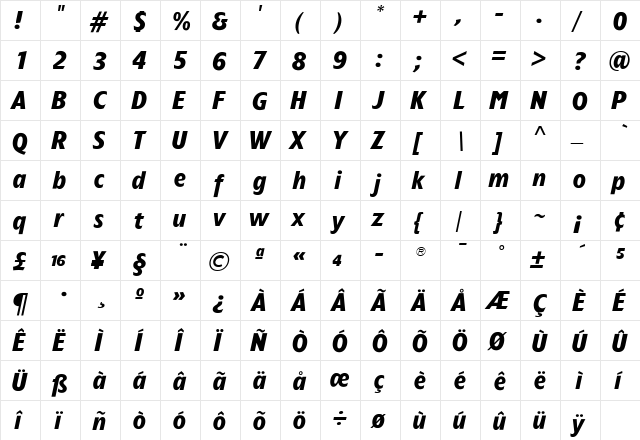
TFForever Bold
| Foundry | J. Treacy,Treacyfaces,Inc |
| Year | 1988 |
Design Context for TFForever Typeface
TFForever is a composed and adaptable typeface that performs quietly and consistently across a wide range of design contexts. The heavy weight commands attention and anchors typographic hierarchies.